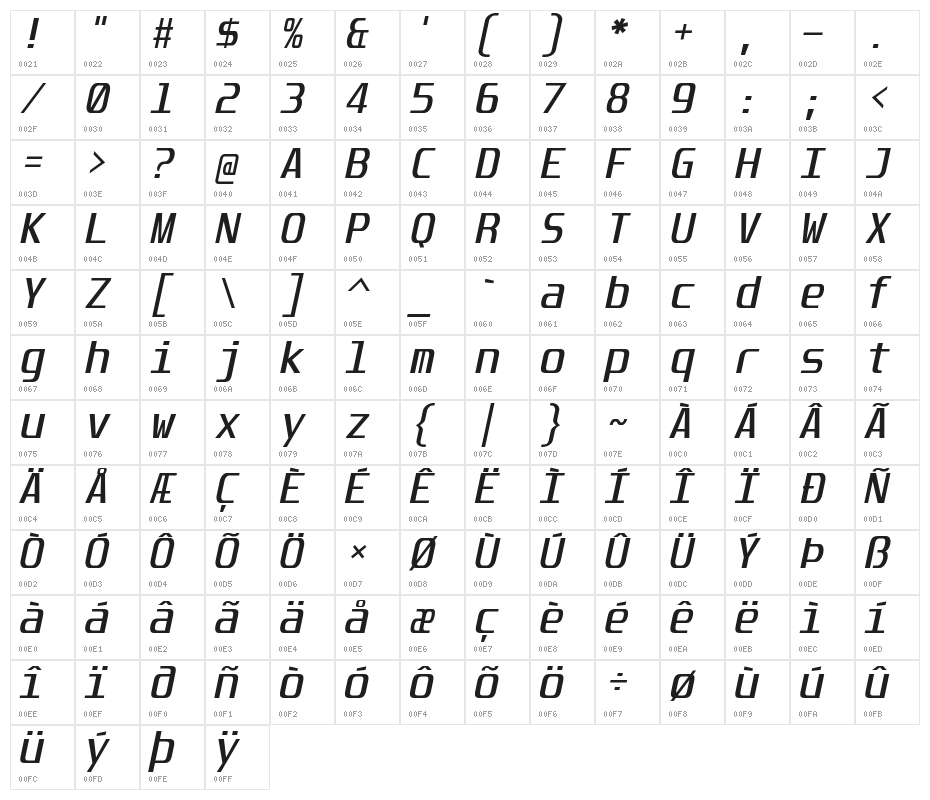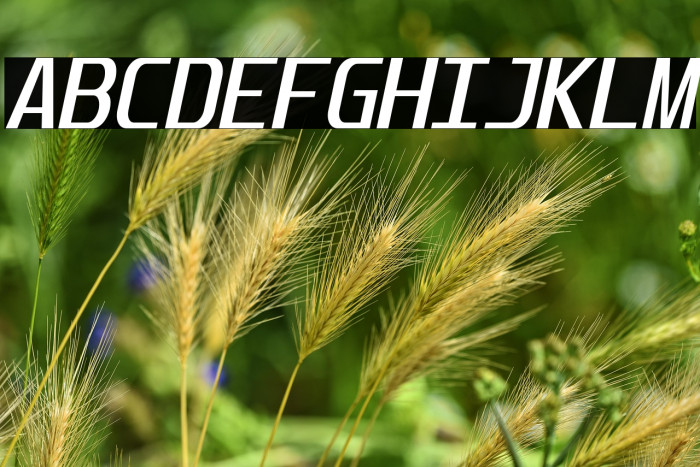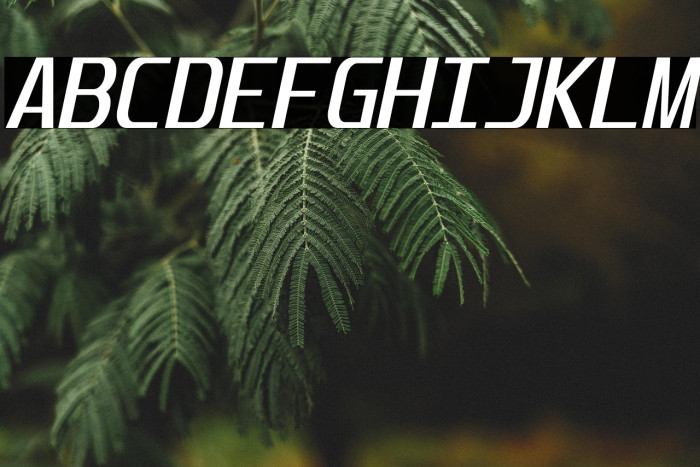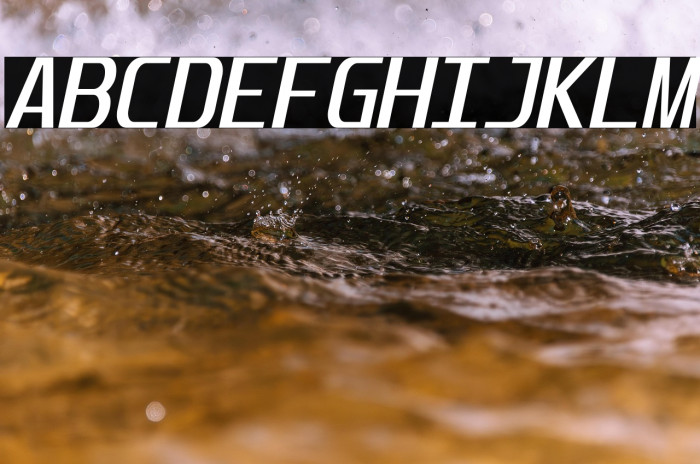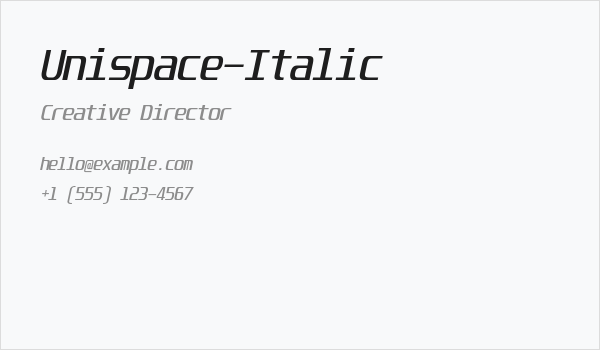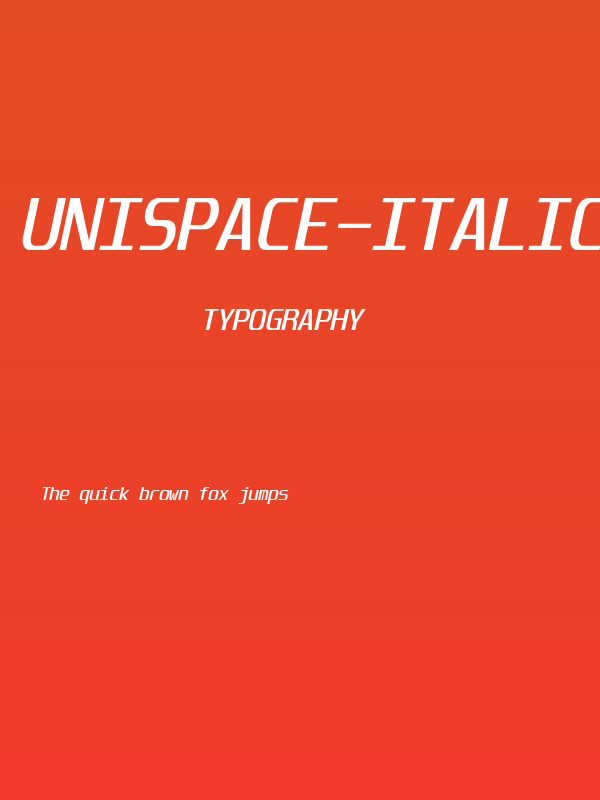
Unispace-Italic Font
Unispace-Italic Description
This font features a sleek, modern design with a distinct italic slant, giving it a dynamic and forward-moving appearance. The characters are uniformly spaced, maintaining a clean and organized look. The strokes are consistent in thickness, providing a medium contrast that enhances readability while retaining a stylish edge. The font's geometric structure and sharp angles contribute to its contemporary feel, making it suitable for a variety of digital and print applications. Its versatility is evident in its ability to convey both professionalism and creativity.
| Use Case | Headlines, Logos, Digital interfaces |
| Proposed Projects | Ideal for technology branding, modern advertising, digital interfaces, and editorial design. |